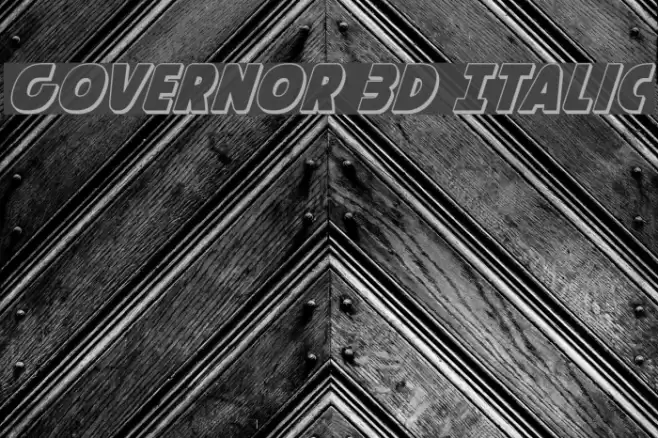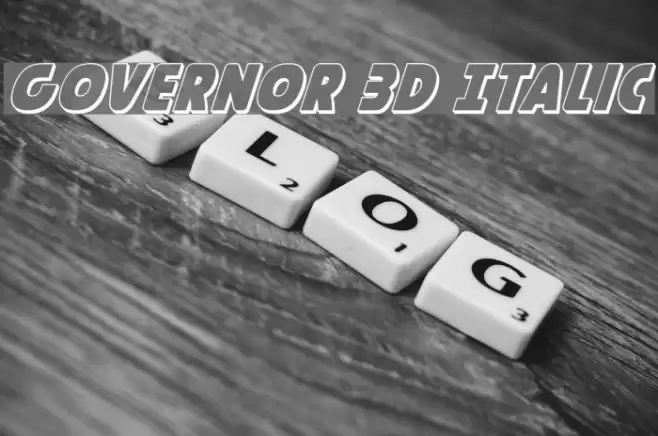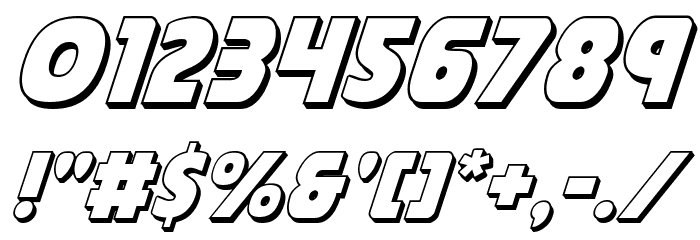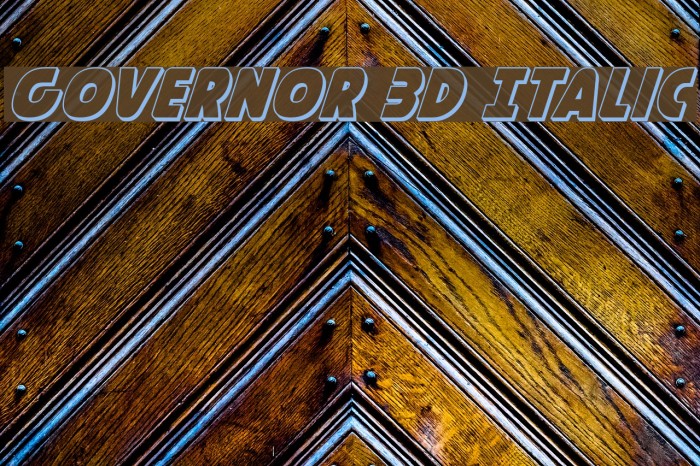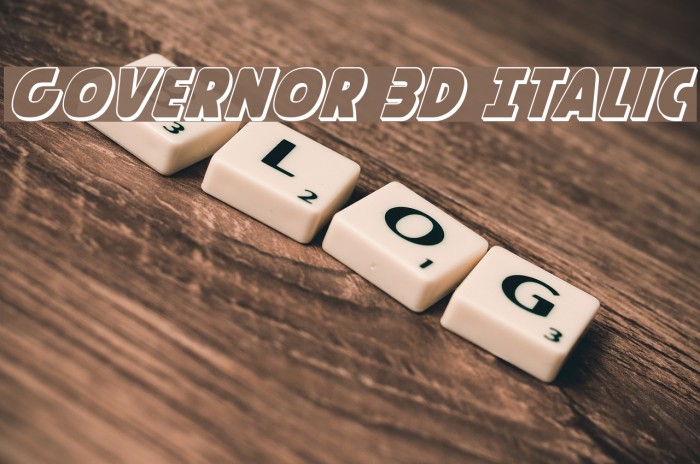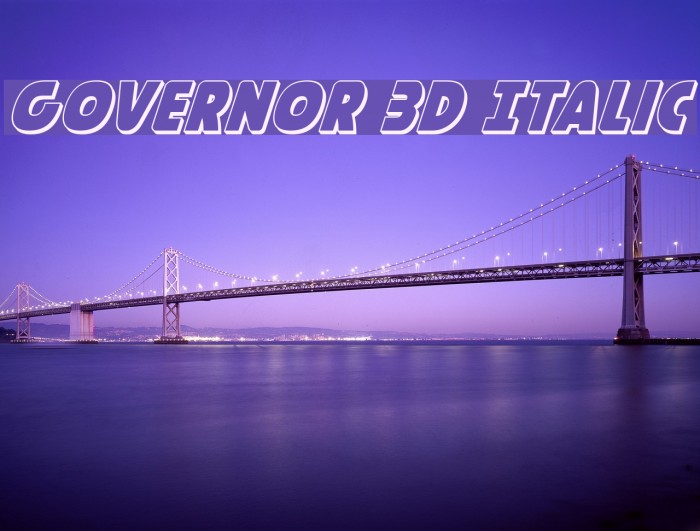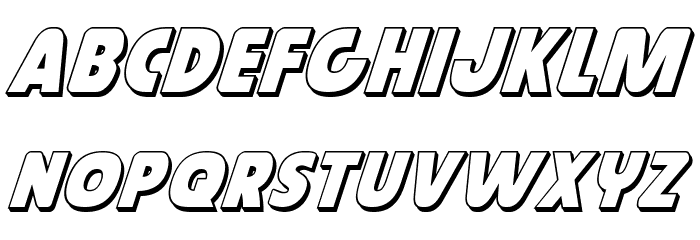
Governor 3D Italic Font
Governor 3D Italic Description
This font features a bold, three-dimensional style with a distinct italic slant, giving it a dynamic and modern appearance. The characters are outlined, creating a shadow effect that enhances the 3D illusion. The uppercase and lowercase letters maintain a consistent width, contributing to a uniform look. The numerals and special characters are designed to match the boldness and style of the alphabet, ensuring a cohesive appearance across all text. This font is particularly eye-catching and is designed to stand out, making it ideal for attention-grabbing headlines or titles.
A bold, 3D italic font with outlined characters and a modern, dynamic style from Sci-fi fonts.
- Proposed Projects: Ideal for use in posters, advertisements, video game graphics, and any project requiring a bold, attention-grabbing typeface.